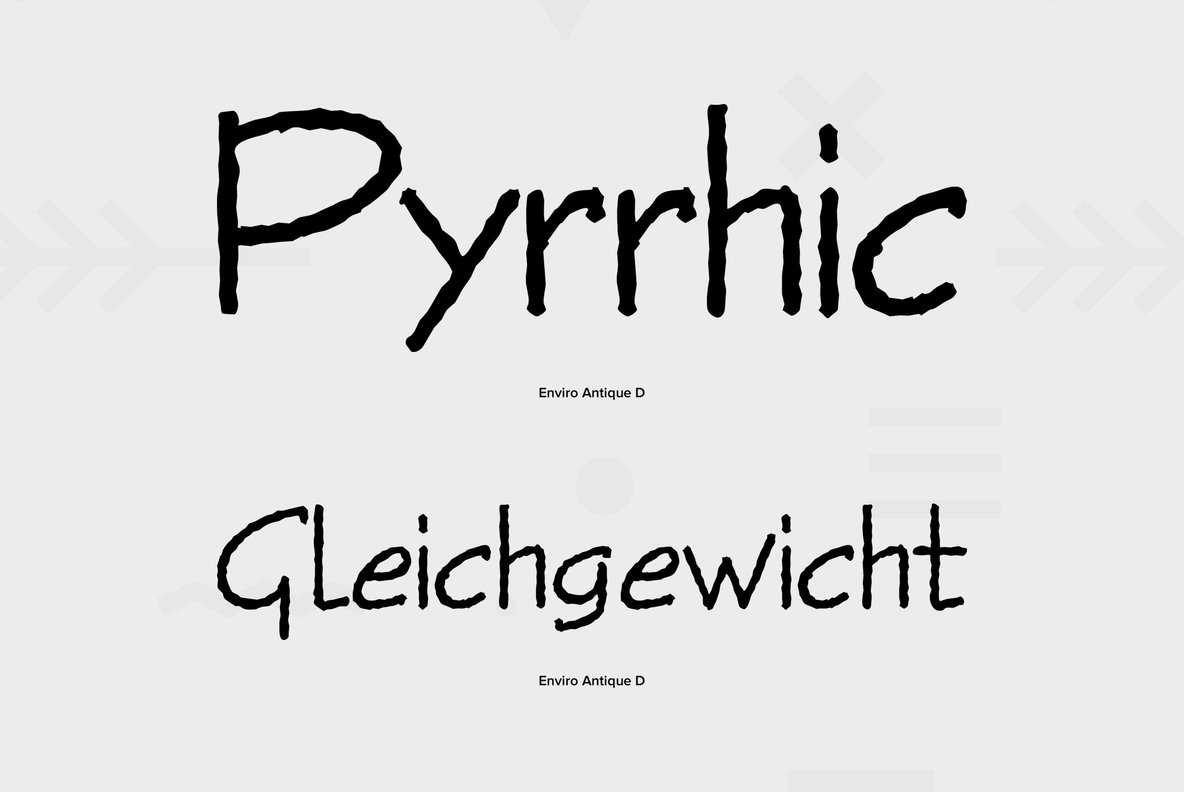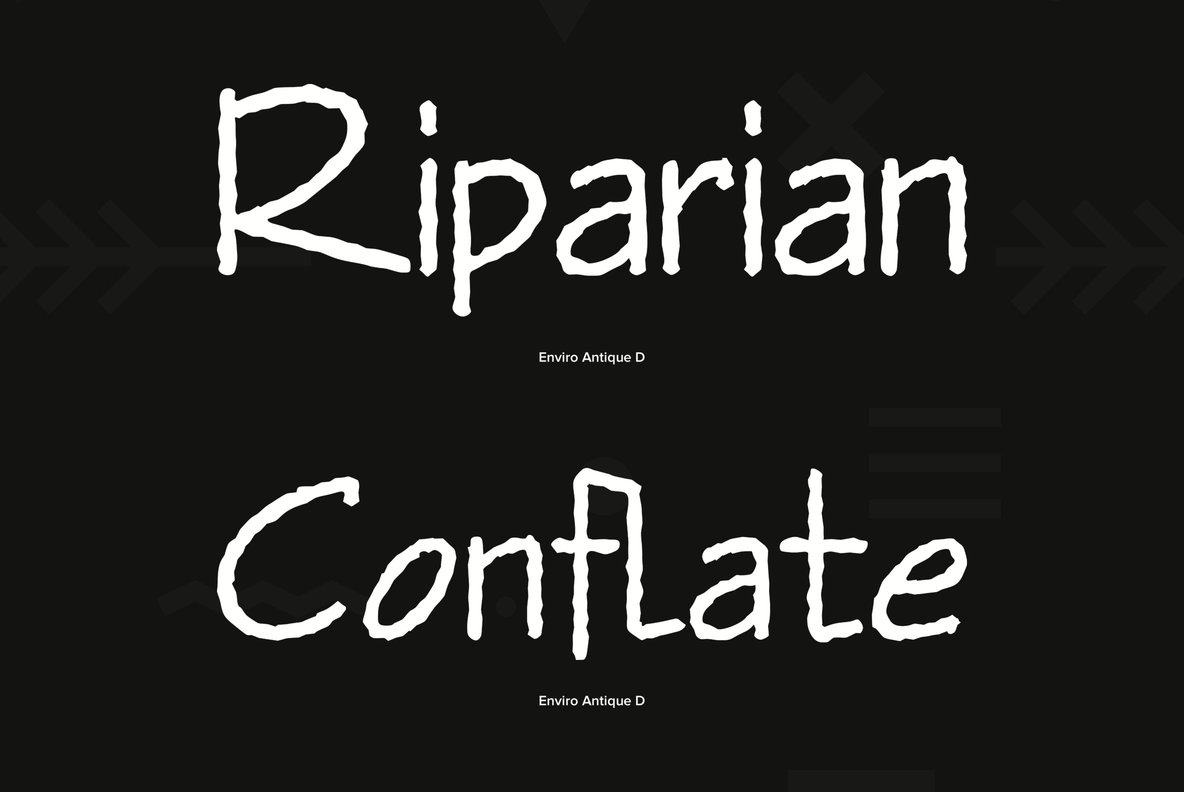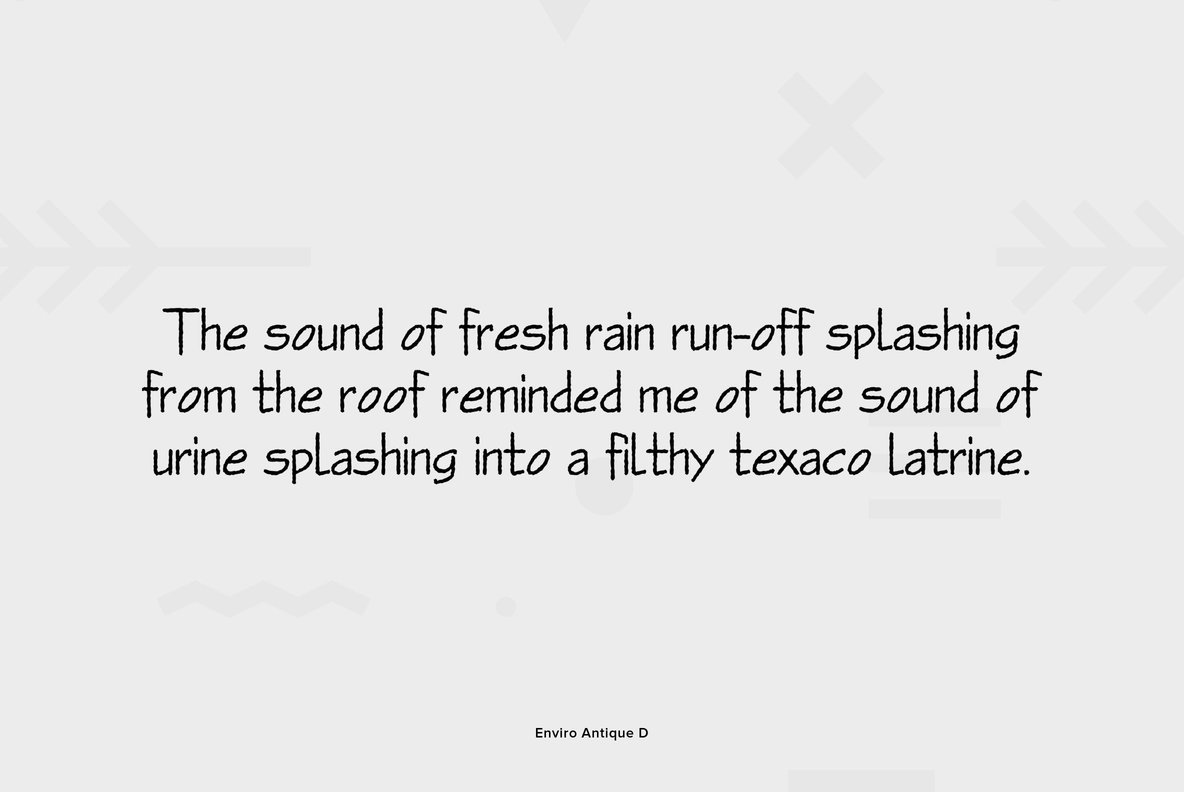
Designed by Letraset Studio in 1982, Enviro is a quirky and faux distressed font release by URW. Contains language support for West, East, Turkish, Baltic, and Romanian.